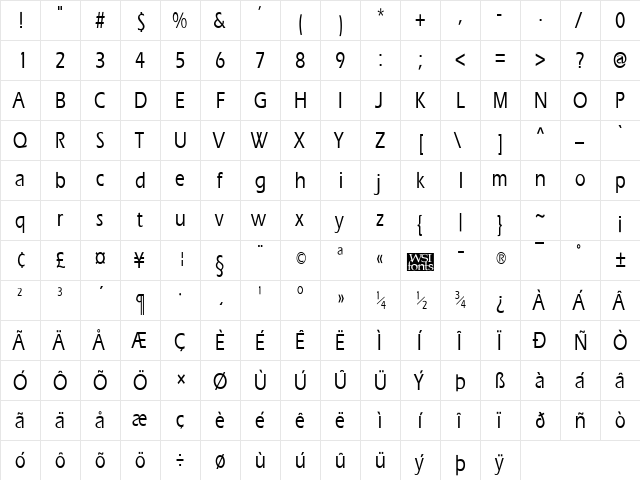
ErgoeMediumCondensed Regular
Design Context for ErgoeMediumCondensed Typeface
ErgoeMediumCondensed takes a measured approach to typography — its balanced proportions and neutral character make it a reliable workhorse for both digital and print work. The condensed width makes it efficient for tight spaces without sacrificing legibility.